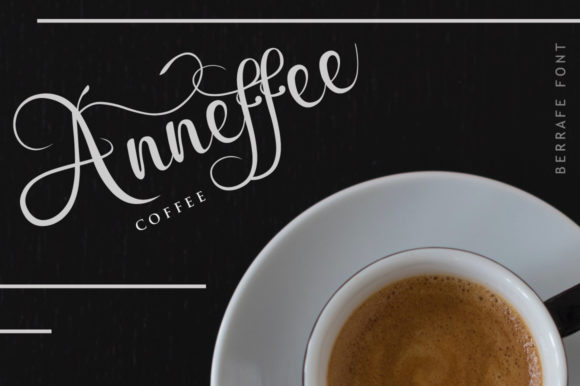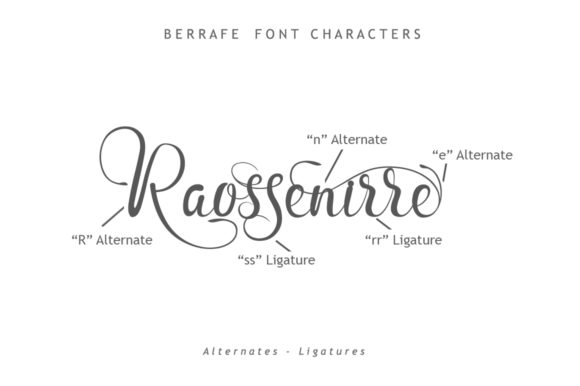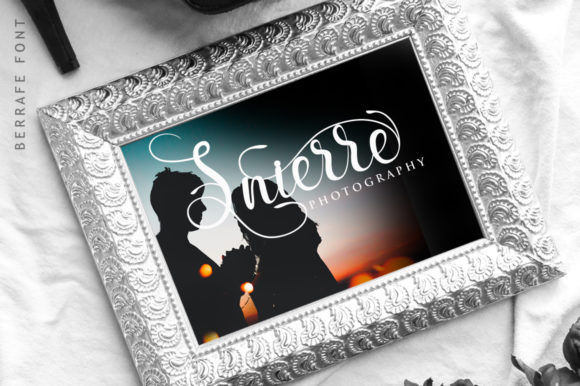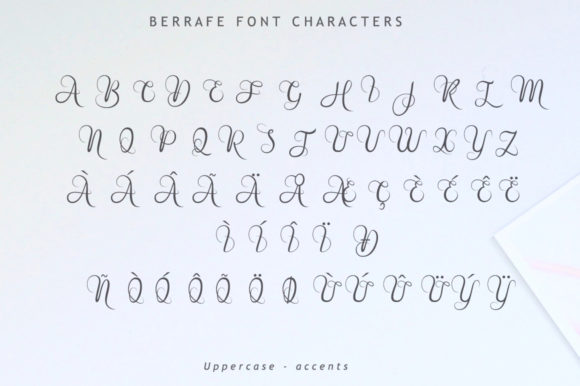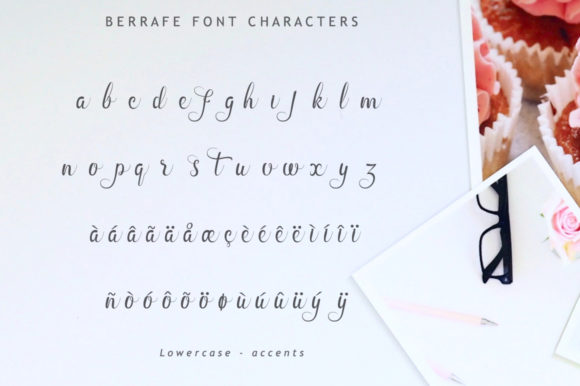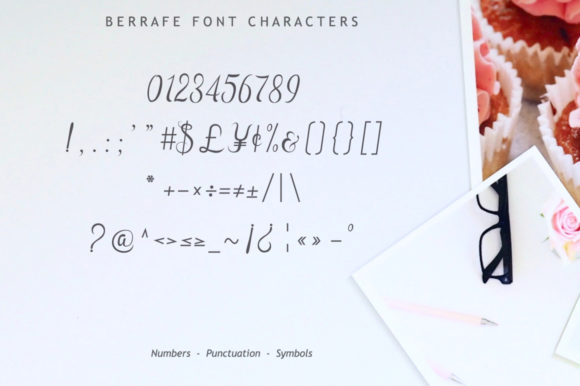
Introduction to Berrafe Font
The Berrafe is a beautiful modern calligraphy script font.
It’s perfect for wedding invites, logos,branding, quotes, product packaging, headers, and more .
Key Features of Berrafe Font
Why Choose Berrafe Font?
Berrafe Font offers exceptional quality and versatility, making it a valuable addition to your design toolkit. Whether you’re creating for personal projects or commercial use, Berrafe Font delivers professional results.